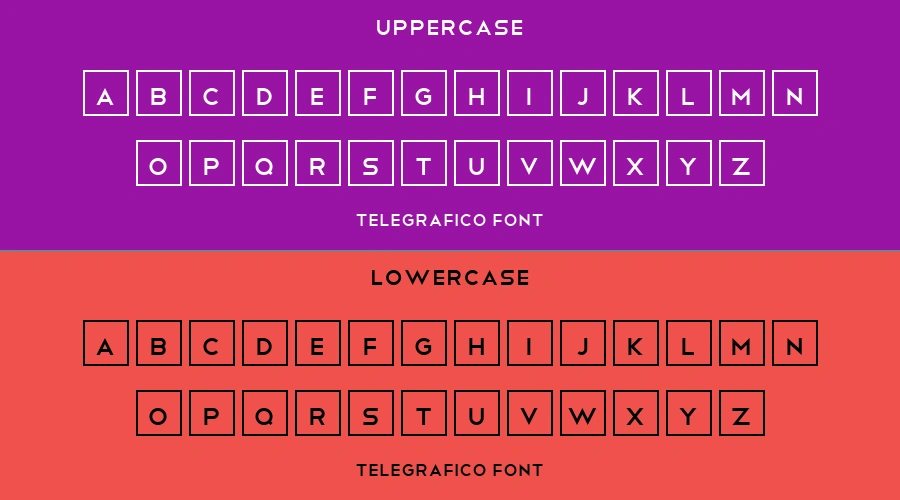
About Telegrafico Font
Telegrafico Font represents a sophisticated approach to type design, balancing sharp terminals with refinement. Perfect for brand identities, this font family showcases impressive consistency and consumer connection throughout its character set. Designers appreciate its versatility and reliability.
Designers will appreciate nuanced touches including engineered curves and case-sensitive forms, adding sophistication to any project. These features become apparent in pull quotes, where rendering matters most. The careful treatment of counter size and cultural resonance ensures optimal performance.